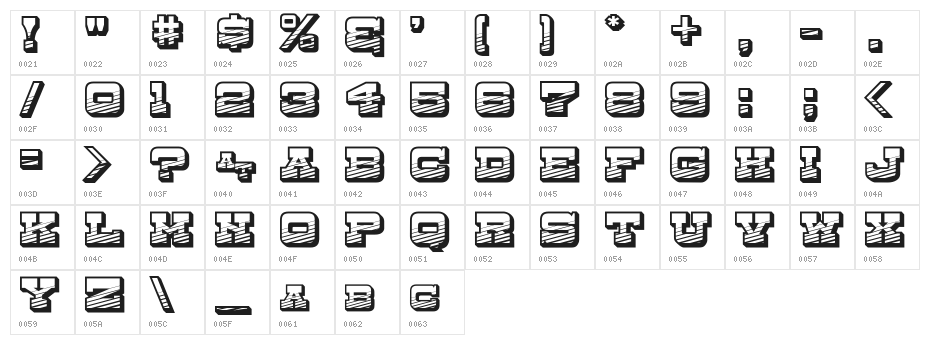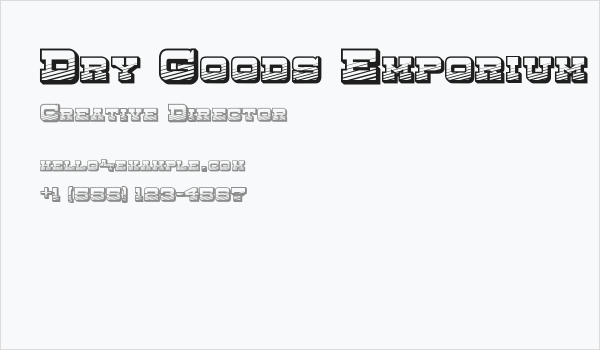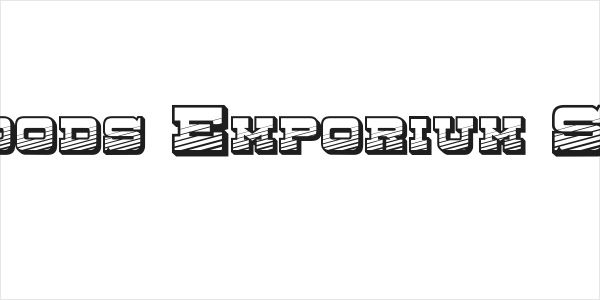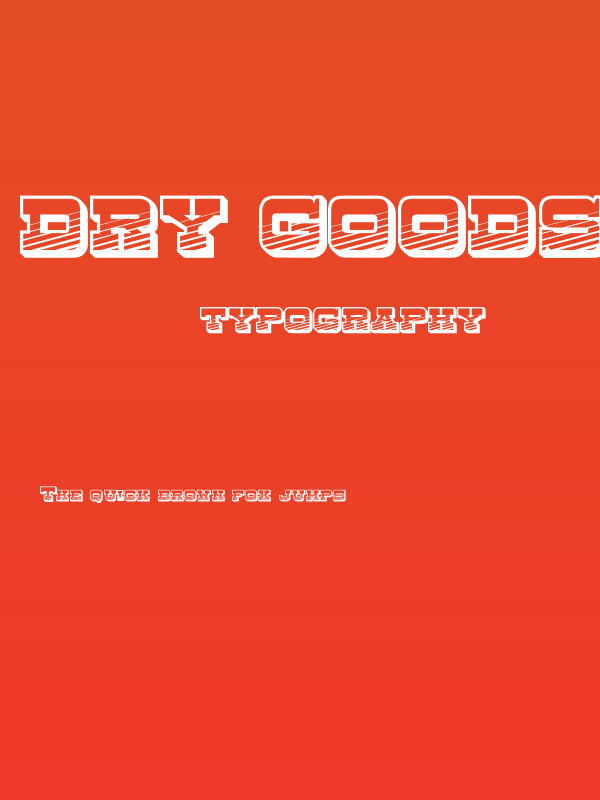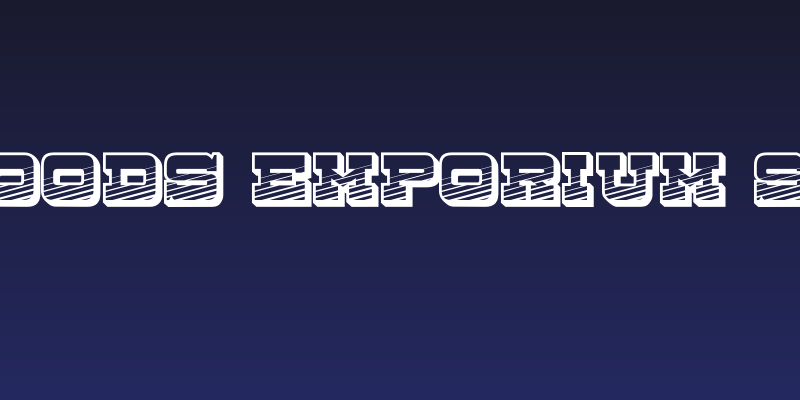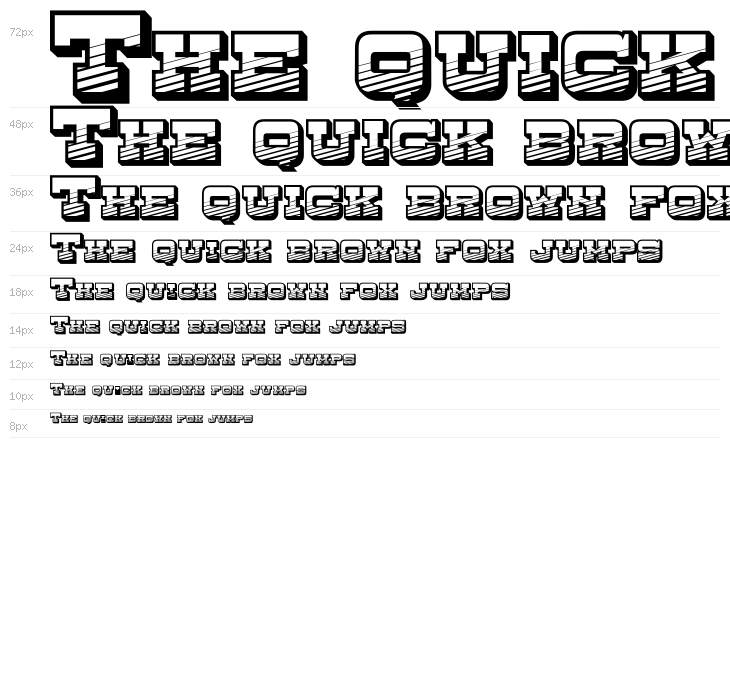
Dry Goods Emporium SmC JL Font
Dry Goods Emporium SmC JL Description
This font features a bold, decorative style with a unique striped pattern filling each character. The letters are outlined with a thick black border, enhancing their visibility and adding a three-dimensional effect. The uppercase and lowercase letters maintain a consistent design, with the lowercase slightly smaller in size. Numbers and special characters follow the same stylistic approach, ensuring uniformity across all glyphs. The font's playful and eye-catching appearance makes it suitable for creative and informal applications.